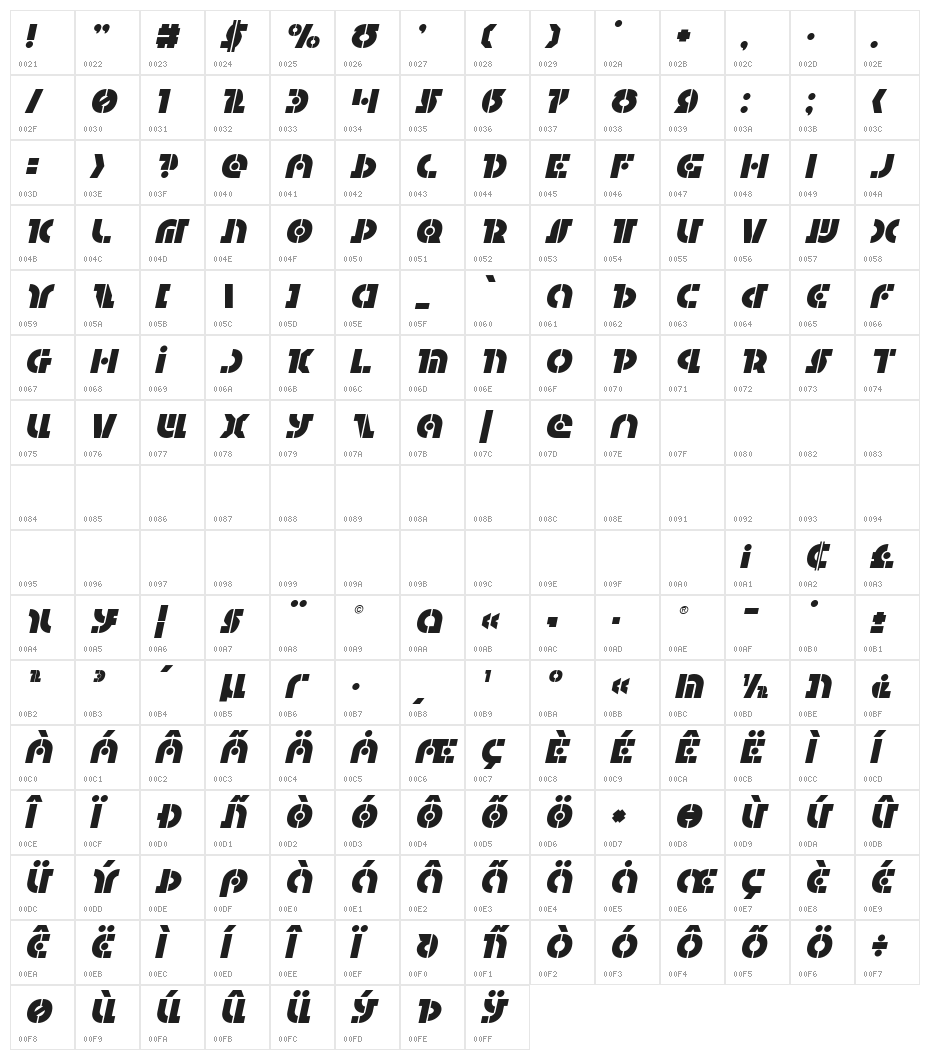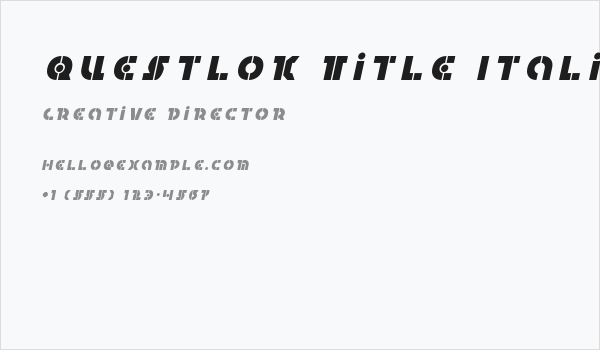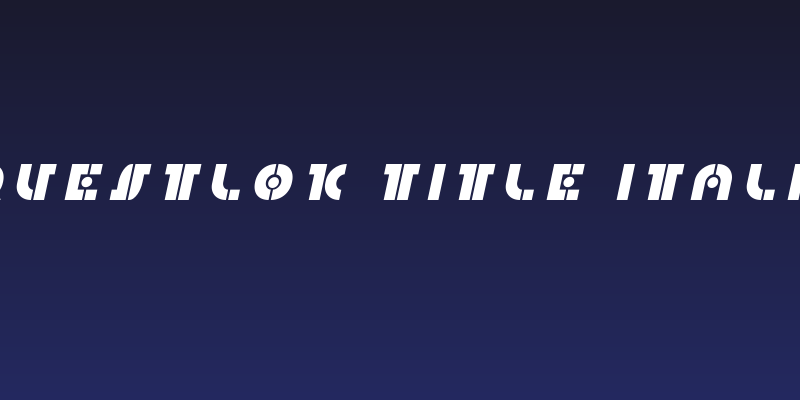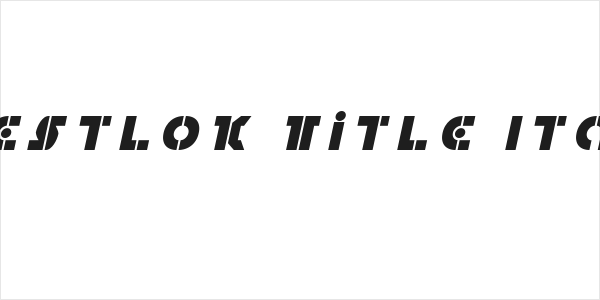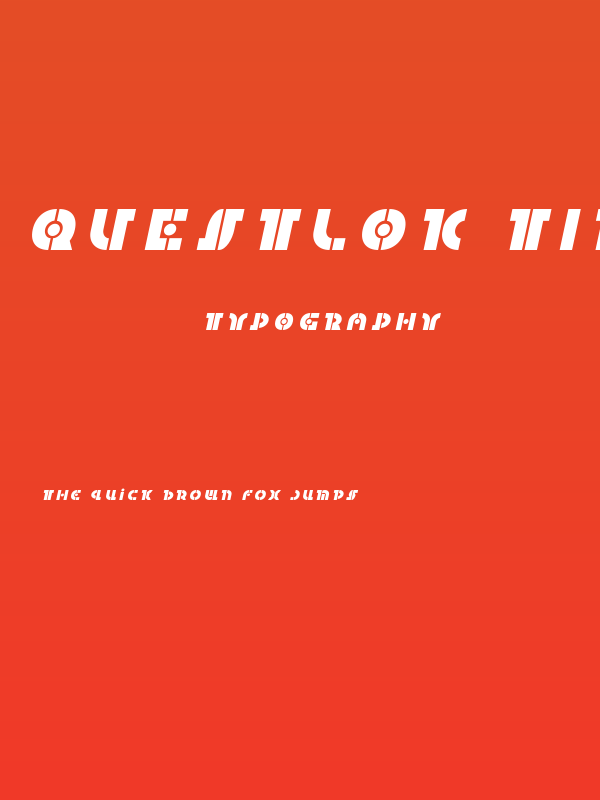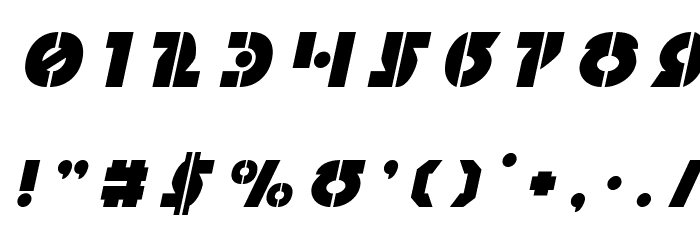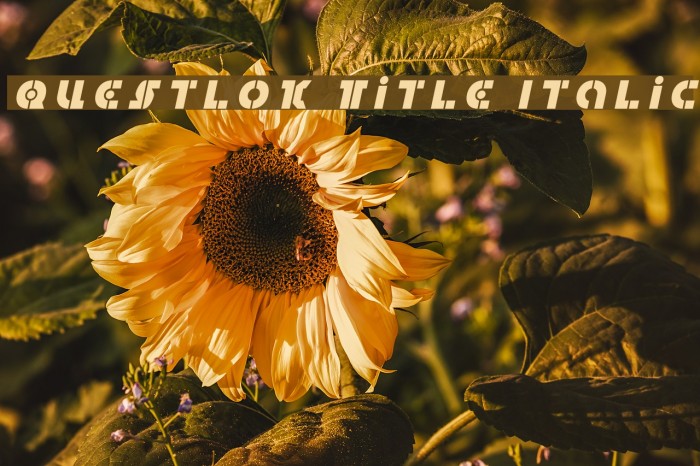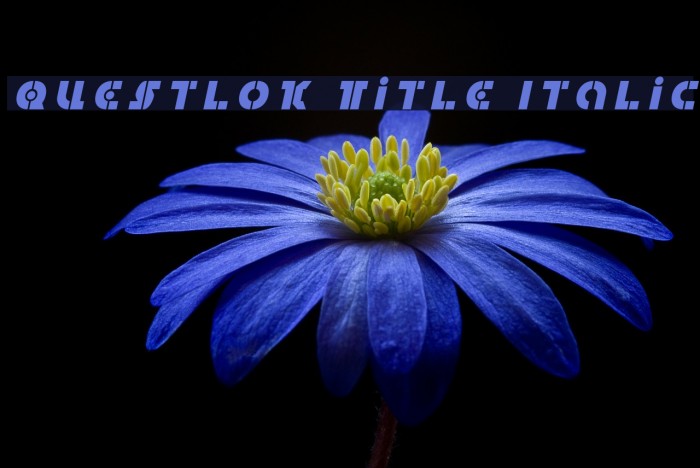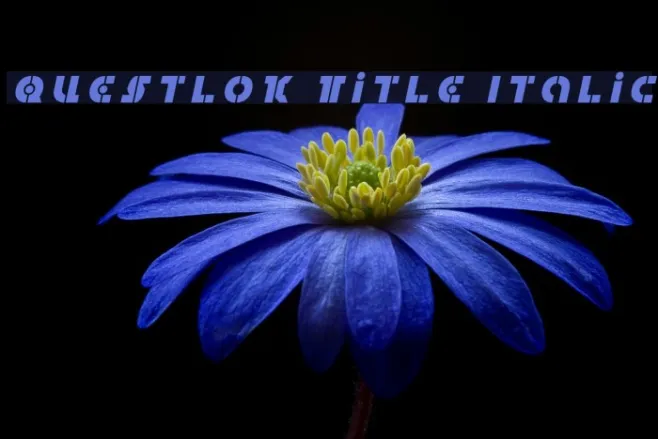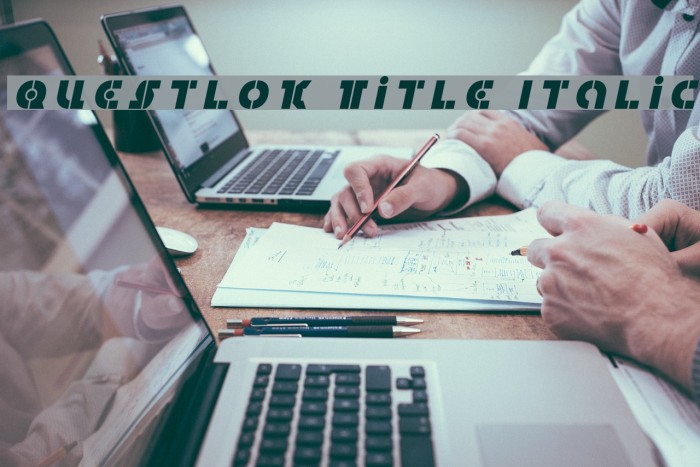
Questlok Title Italic Font
Questlok Title Italic Description
This font features a bold and dynamic style with a distinct italic slant, characterized by its geometric and angular letterforms. The design incorporates sharp edges and unique cut-out shapes within each character, creating a futuristic and edgy appearance. The uppercase and lowercase letters maintain a consistent style, while the numerals and special characters complement the overall aesthetic. Its bold presence and high contrast make it suitable for attention-grabbing designs.
| Proposed Projects | Ideal for modern branding, sci-fi themed projects, posters, and digital media that require a bold statement. |